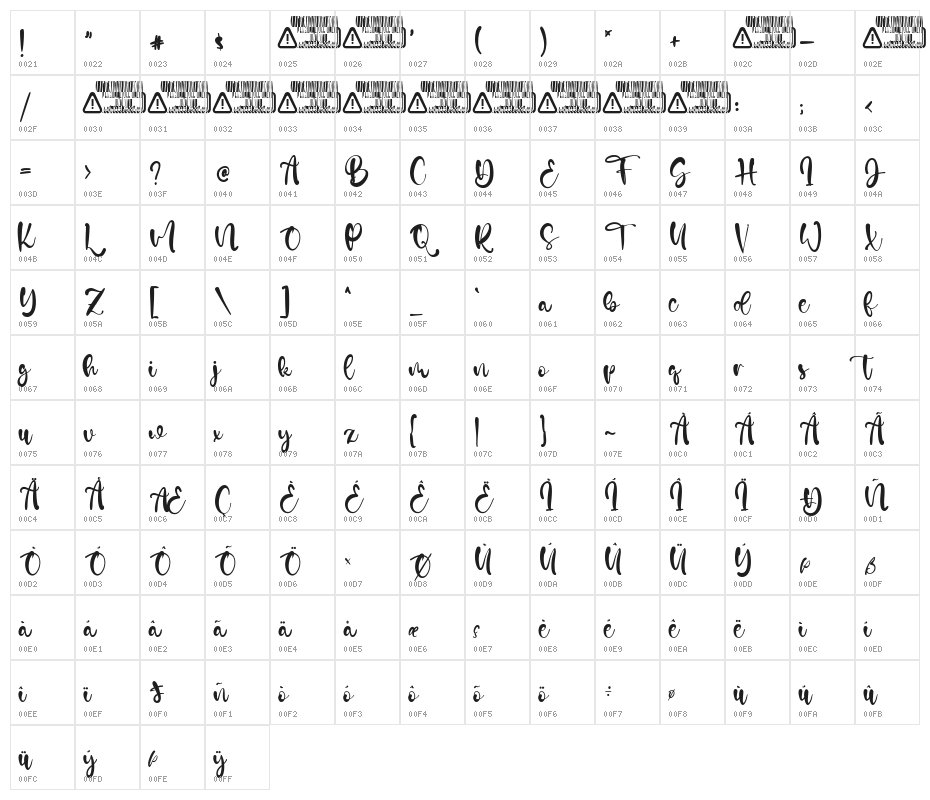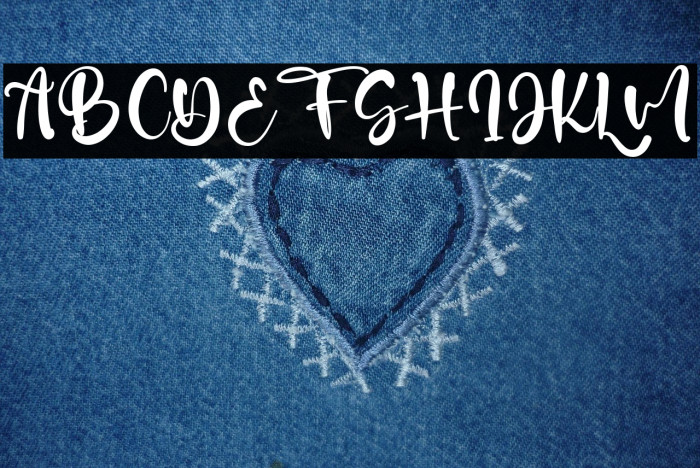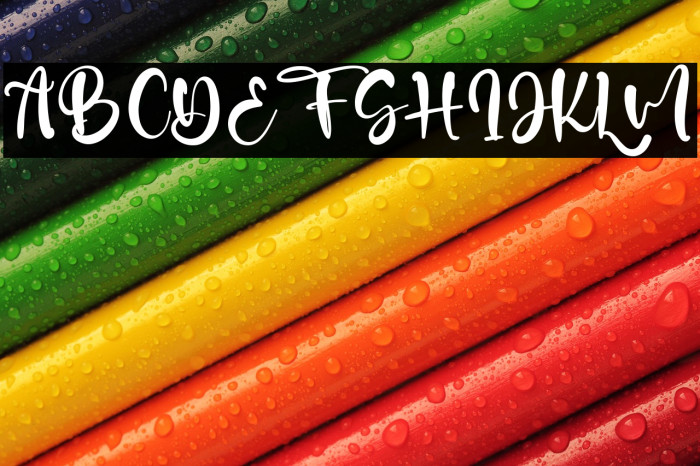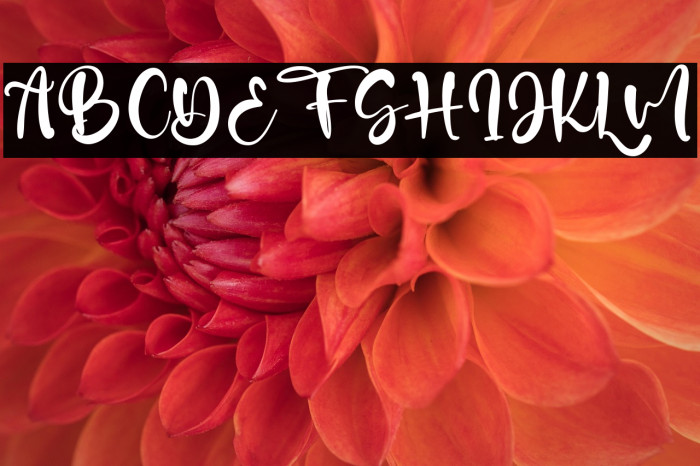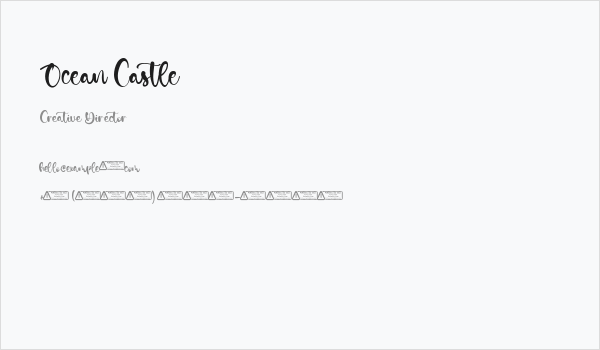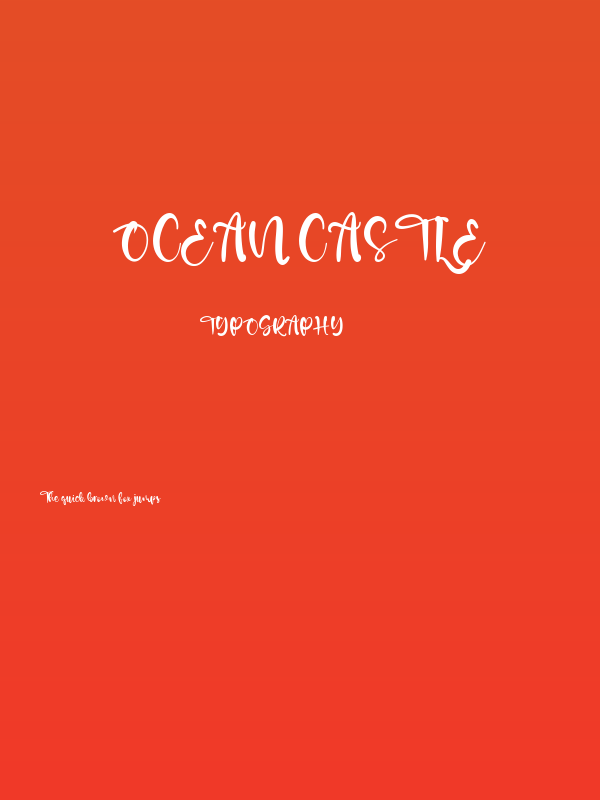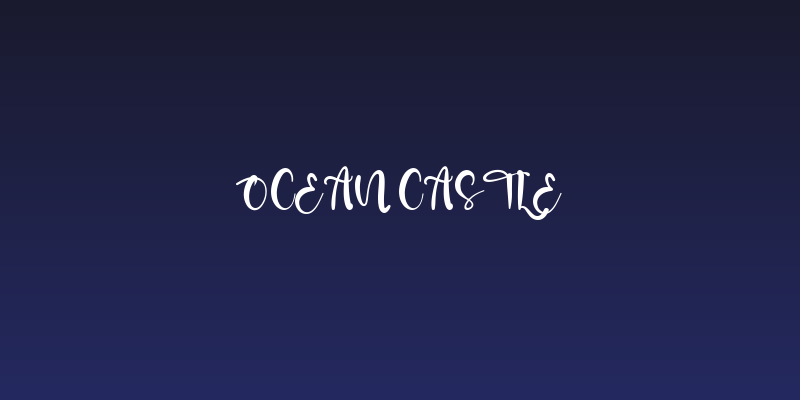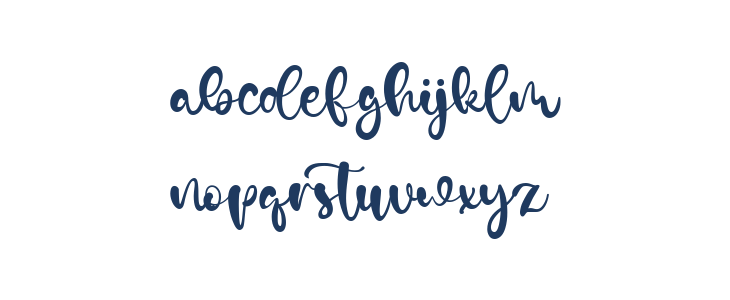
Ocean Castle Font
Ocean Castle Description
This font features a lively and flowing script style, characterized by its bold, sweeping curves and elegant loops. The uppercase letters exhibit a sense of grandeur with their exaggerated flourishes, while the lowercase letters maintain a consistent rhythm and fluidity. The overall appearance is both playful and sophisticated, making it suitable for creative and expressive design projects. The font's unique style is further enhanced by its high contrast in stroke thickness, adding a dynamic and eye-catching quality. Its decorative nature makes it ideal for projects that require a touch of elegance and personality.
| Use Case | Logos, Headlines, Invitations |
| Proposed Projects | Ideal for wedding invitations, branding, greeting cards, and artistic posters. |